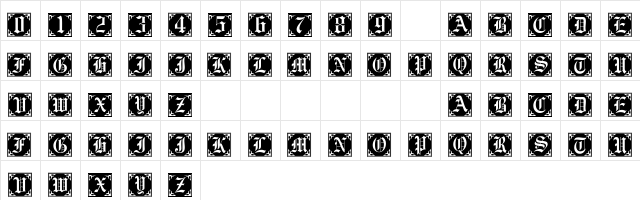
101! Antique Alpha Regular
Design Context for 101! Antique Alpha Typeface
101! Antique Alpha has the warm character of retro typography — evoking diners, record sleeves, and the golden age of print advertising.
Ideal for diner signage, record shop branding, 70s/80s-themed projects, and heritage product labels.
Font Pairing: Combine 101! Antique Alpha with a simple slab or neutral sans — period-accurate companions reinforce the vintage feel without competing for attention.
Pro Tip: Lean into 101! Antique Alpha's period character by pairing it with aged paper textures, muted colour palettes, and vintage illustration styles.